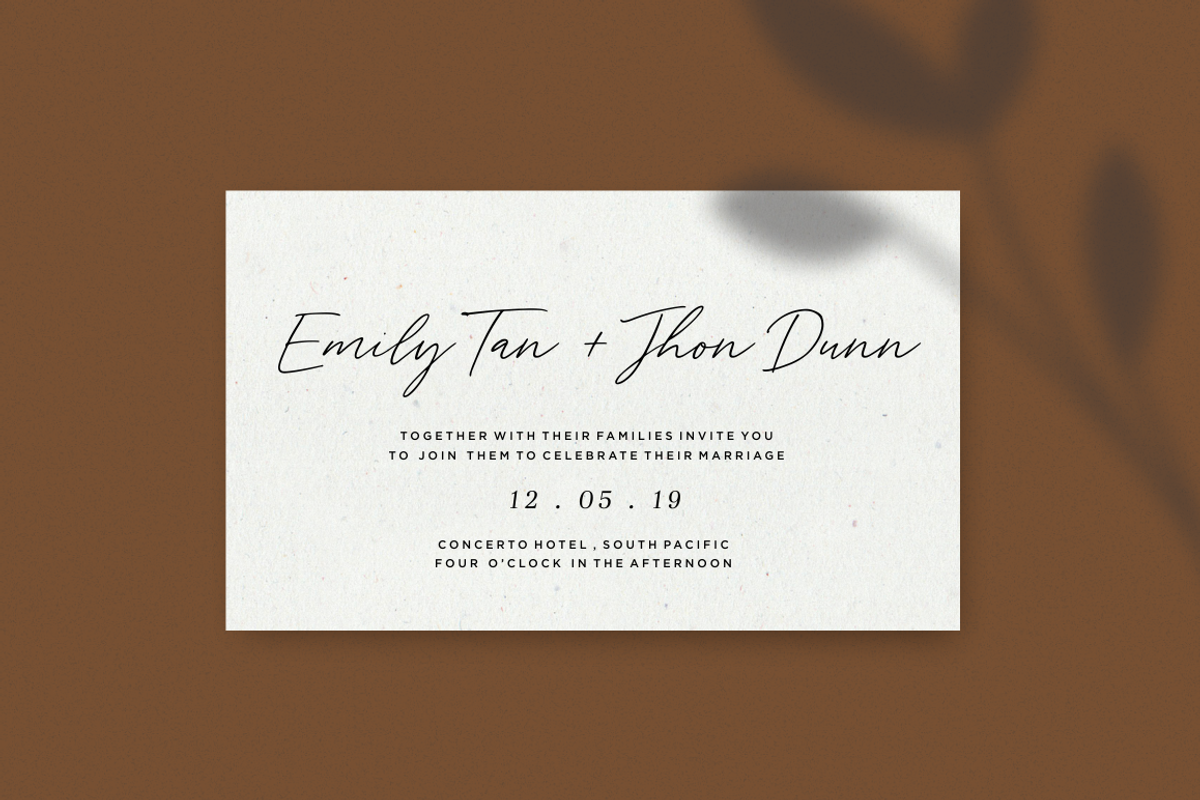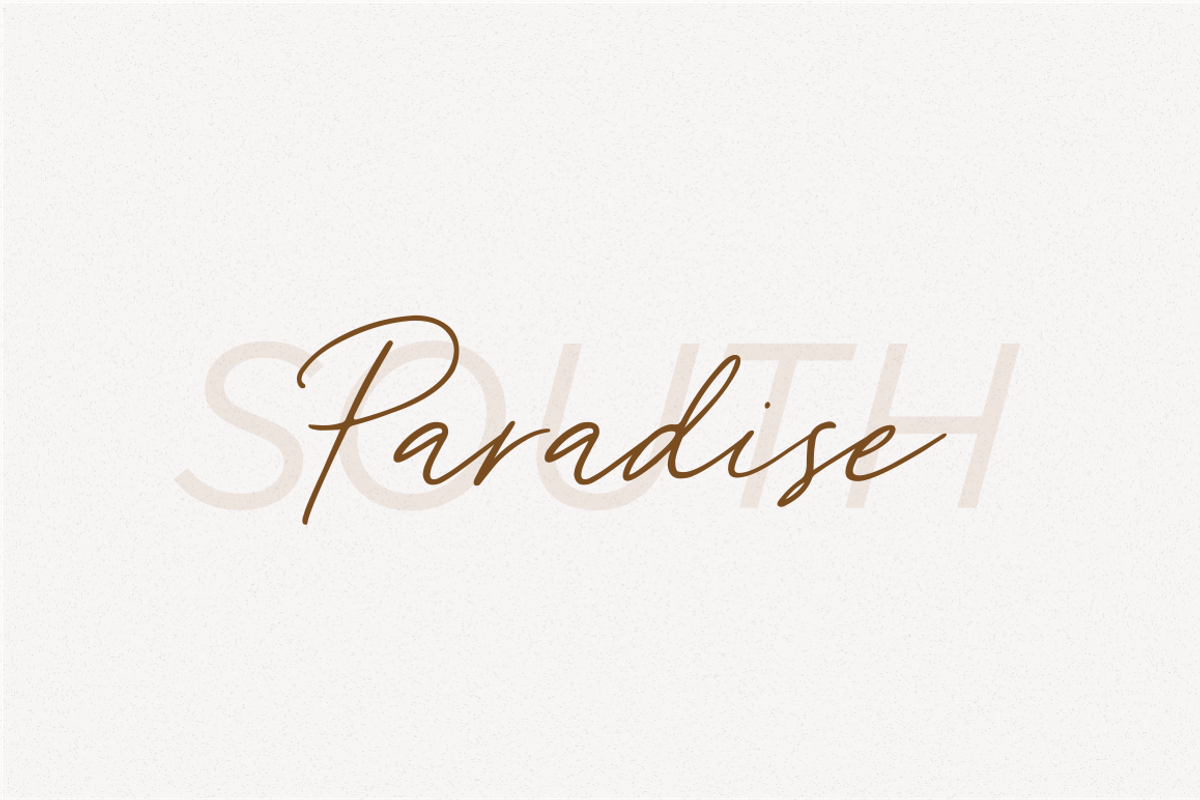
Tantinotes is a natural handwritten font was designed by Sronstudio. It is perfect for logos, invitations, stationery, wedding designs, social media posts, advertisements, product packaging, product designs, label, photography, watermarks, special events or anything. The font come with a full set of uppercase and lowercase letters, multilingual symbols, numerals, and punctuation.